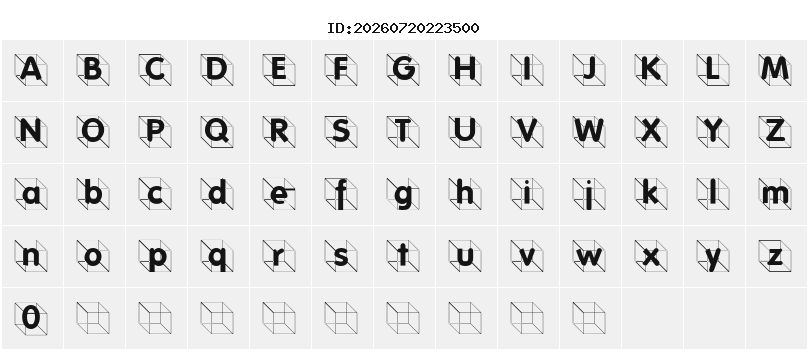
• Font Name: FolksInCube
About FolksInCube.ttf
FolksInCube.ttf is a modern, elegant sans-serif font designed for ultimate readability and visual harmony. Perfect for branding, headlines, web design, and print materials.